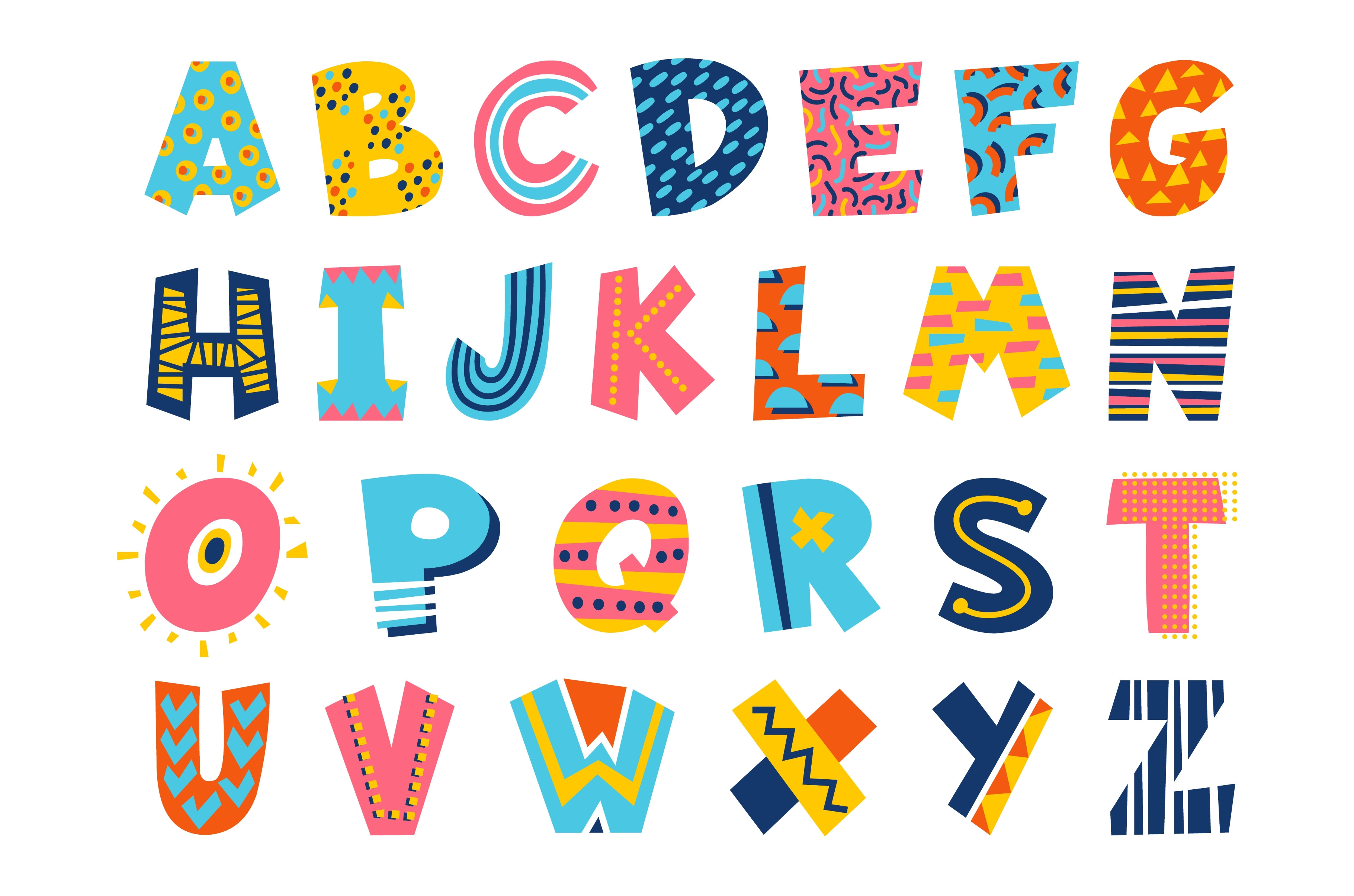
Funny kids font. Bright colorful ABC
Funny kids font. Bright colorful ABC. Childish alphabet shapes. English letters with doodle patterns. Decorative playful icons for education. Color typeface. Children text symbols. Recent vector set